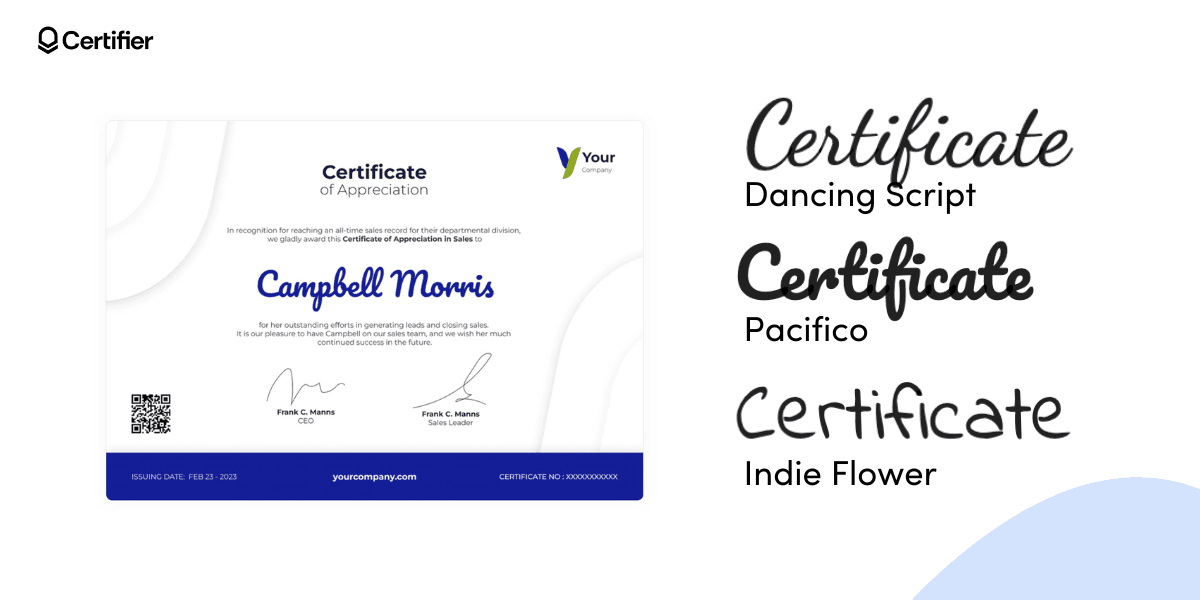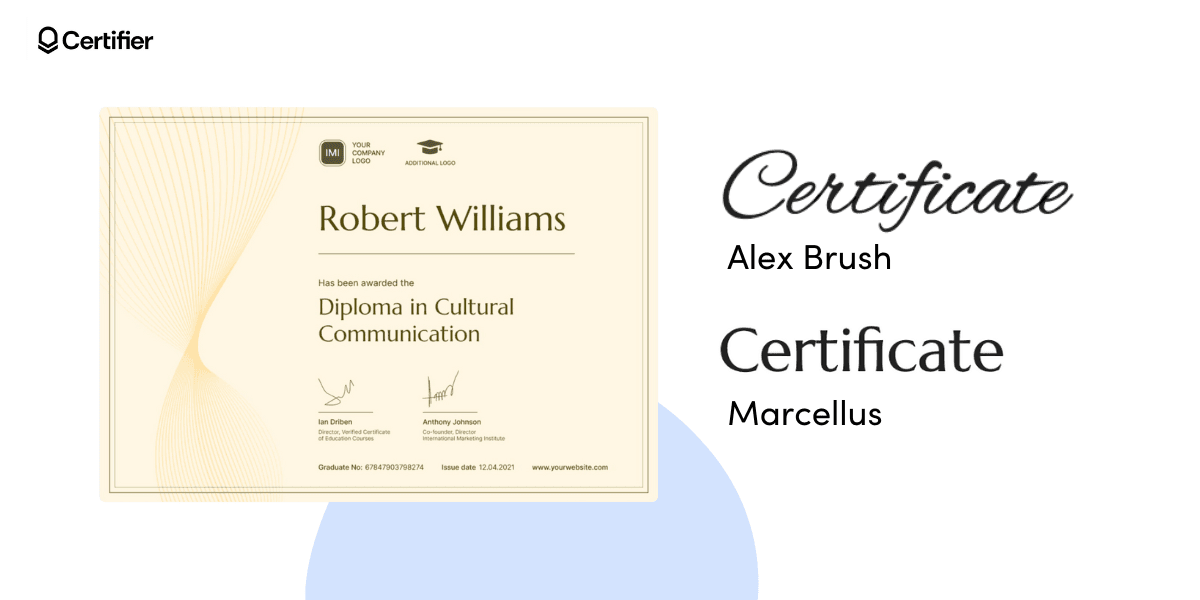
Certificate Fonts Guide: How to Choose the Perfect One
We're back with another certificate design tip! How to choose the perfect certificate fonts that strengthen your message? Here is the ultimate guide that shows you all the way to choose well (+free fonts to download!).
Google Fonts provide over 1,500 font families. In each family, you get approximately 5-8 other font variations. All that gives you around 12,000 certificate fonts to choose from. And all of that is just from one font source.
Choosing the right certificate font name is challenging. A perfect one can dramatically improve your design. The bad one…
Well, with this guide, you just can't go wrong. Get to know the secrets of using the best fonts for certificates. From A to Z.
What is typography in certification?
Typography contains fonts, sizes, and styles for the letters – the central elements of certificate design. Fonts used in certificates express design mood and meaning and improve the certificate's readability. Certificate fonts have much power over how your recipients perceive the official document. They strengthen the message and can trigger different reactions in the readers.
Serif vs. Sans Serif certificate font
When you're looking for the perfect certificate font name, you're likely to come across these two expressions – Serif and Sans Serif. They’re the most common typeface categories. Both are widely used in designing certificates, business cards, book design, web pages, wedding invitations, wedding cards, and formal documents.
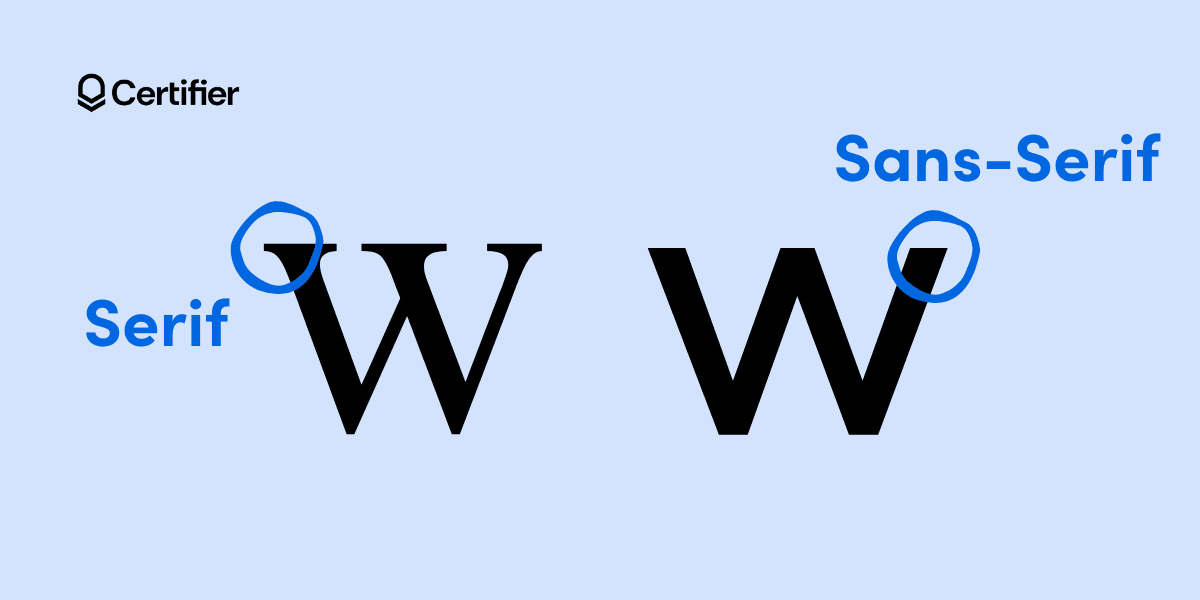
Serif certificate fonts
Imagine little "feet" or "hats" on the ends of the letters. That's what the traditional serif font family has. These little lines make the letters look fancy and traditional. Think of them as the decorative details on letters. It’s the best font for certificates if you want to print your certificates. Popular serif fonts used in certificates include Times New Roman and Georgia.
Sans-Serif certificate fonts
Now, take away those "feet" and "hats" from the letters, and you have sans-serif fonts. They look simpler and more modern because they don't have those extra outlines. These certificate font styles are clean and straightforward with timeless appeal. Use them if you want to keep your certificates digital. Arial and Helvetica are the best fonts for certificates from the sans-serif family.
What are the best fonts for certificates?
The best certificate font will depend on the specific design and purpose of the certificate. Different occasions call for different certificate font style. The more traditional font option will work well if you want to print certificates for formal events. Certificate writing font with a more modern look – for digital versions and casual occasions.
01 Elegant and professional certificate fonts: Libre Baskerville, Montecarlo
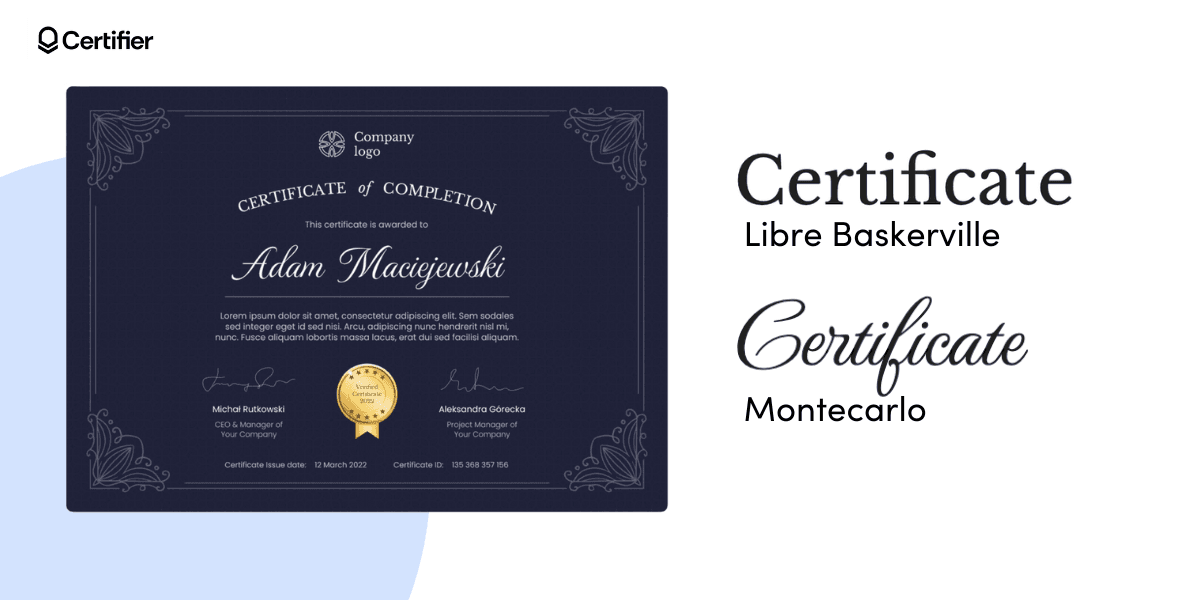
Libre Baskerville: This classic serif font exudes a timeless elegance, making it an excellent choice for a certificate font name that demands a touch of sophistication.
Montecarlo: With its refined and calligraphic style, this elegant script offers a professional aesthetic that can elevate the overall look of your certificates.
02 Modern and playful types of certificate fonts: Kalam, Montserrat, Ubuntu
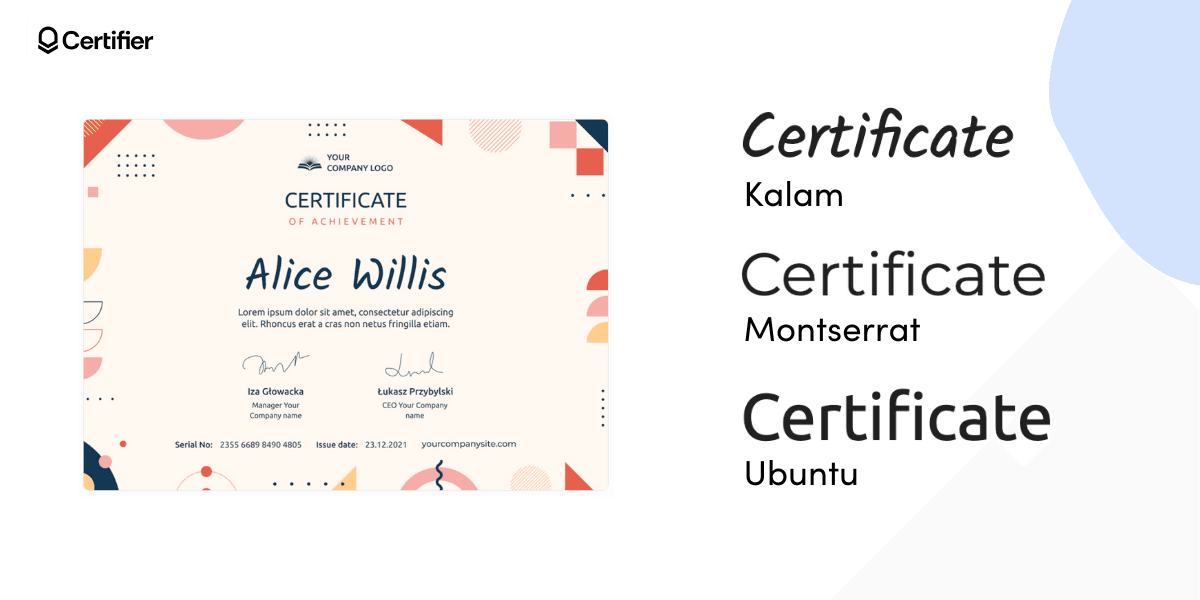
Kalam: These modern certificate handwriting fonts bring certificates a playful yet modern twist. Perfect for occasions where you want to convey a sense of creativity and joy. Look at this certificate of achievement and the characteristic shapes of this attractive certificate font.
Montserrat: Montserrat's modern sans-serif typeface adds a modern touch to certificates while maintaining a playful undertone thanks to its clean lines and contemporary design.
Ubuntu: Ubuntu's clean and modern Sans-Serif font strikes the perfect balance between modernity and approachability, making it an excellent certificate choice.
🧐 What is the best font for certificate name? All the certificate font style names mentioned here will work well as the ones for certificate names. When selecting a font style for certificate, the best choice often depends on the level of formality and the design aesthetic you're aiming for. Look for crisp and clear lines for the best reading experience.
03 Minimalistic certificate fonts: Josefin Sans, Poppins
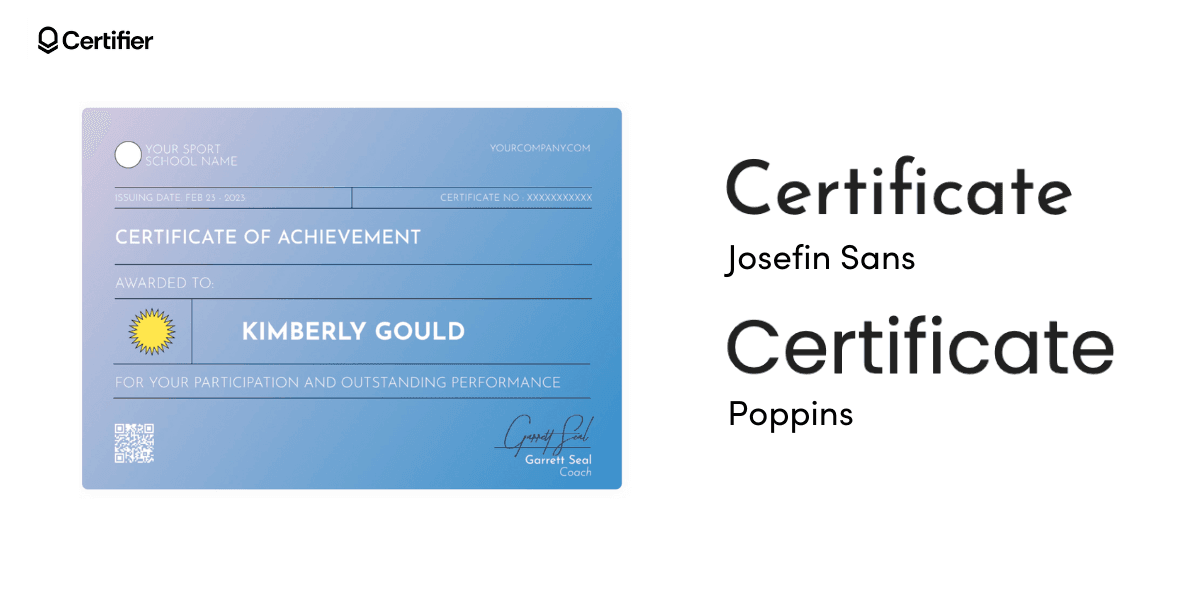
Decorative fonts for certificate can add uniqueness and flair to certificates, making them stand out. However, they should be used sparingly, typically for titles or accents, to avoid compromising the certificate's readability and formal tone.
Sans serif fonts, while modern and clean, are less common choices in font certificates because they lack the traditional, formal qualities often associated with serif and script fonts. Certificates usually favor styles that convey timelessness and respectability.